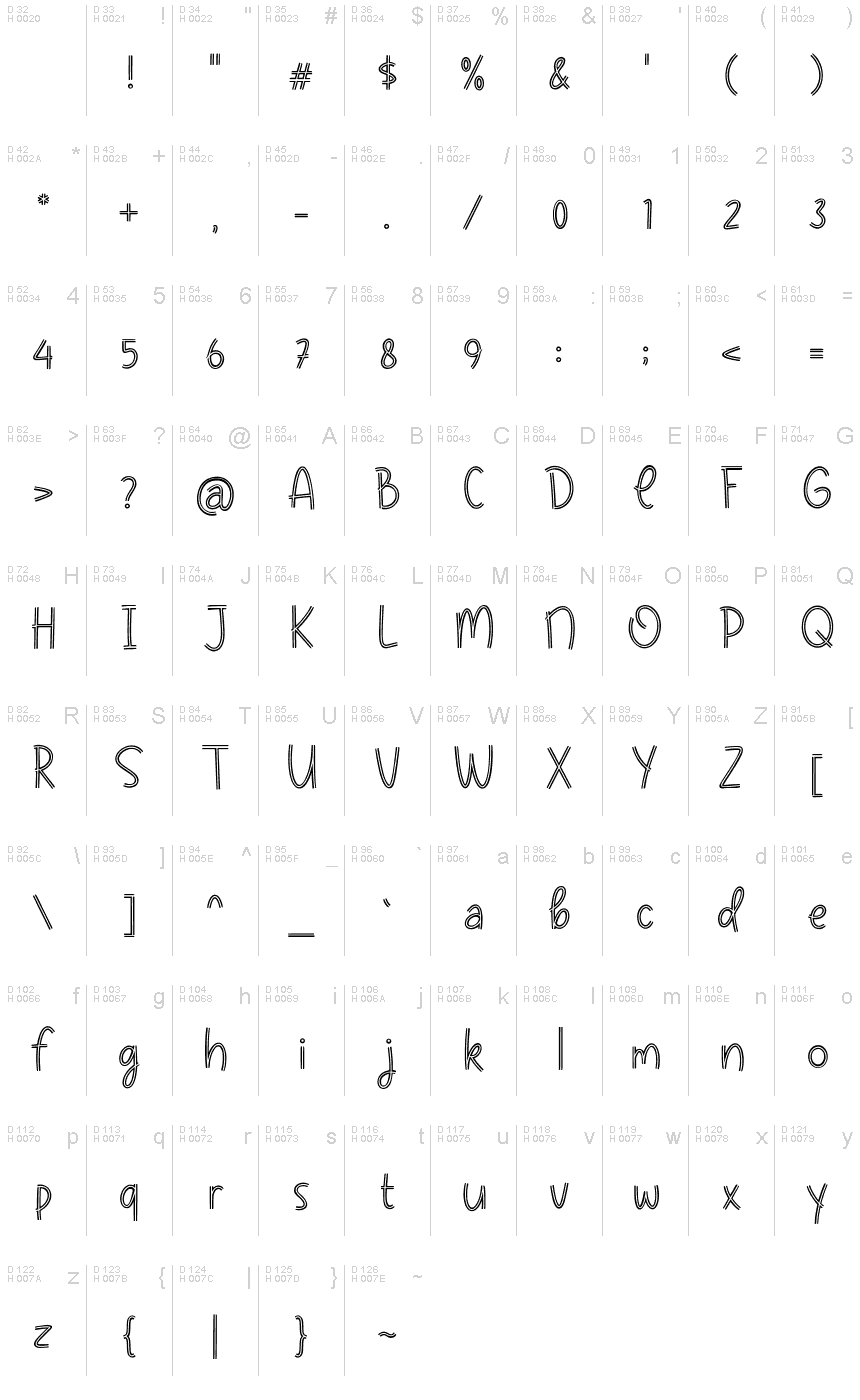
Mythsmiley
Mythsmiley, the captivating handwritten inline font by Allouse Studio, is a perfect blend of elegance and playfulness. The semi-light weight of this typeface makes it ideal for projects that require a delicate touch. From wedding invitations to social media graphics, this font adds a personal and unique touch to any design. It's playful yet refined style also makes it an excellent choice for children's book illustrations or branding for boutique businesses. Get creative with Mythsmiley and let its distinct charm speak through all your designs!